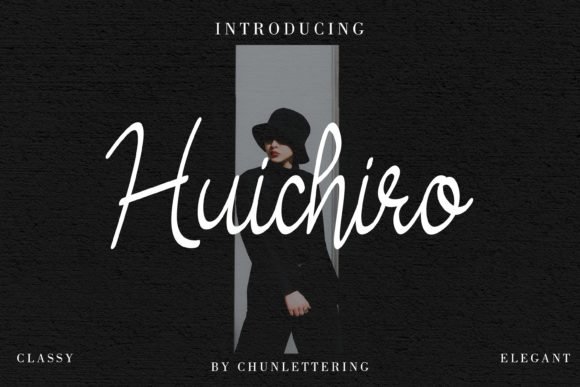
Have you ever been browsing through a magazine or scrolling through social media, and suddenly a font catches your eye? That’s exactly what happened to me when I stumbled upon the Huichiro Font. Its delicate, fashionable script is the epitome of elegance and sophistication, making it perfect for any branding project.
Whether you’re designing a logo, creating t-shirt printing, or crafting unique products, Huichiro Font is an excellent choice. Its versatility allows it to shine in a variety of contexts, from formal events to casual gatherings. As a designer, you’ll appreciate the value of having a font that’s both stylish and functional.
- Font Family: Huichiro Font is a unique, hand-drawn font that features intricate details and textures.
- Unique Characteristics: Features a blend of traditional and modern elements, with a focus on ornate details and textures.
Huichiro Font Review
I recently had the chance to work with the Huichiro font, and I have to say, it’s a unique and intriguing choice. ✨ One of the things that works well is its versatility – it can be used for both display and body text, making it a great option for designers who want a consistent look throughout their project.
- ✨ Versatility in font usage
- ✨ Interesting, hand-drawn aesthetic
- ✨ Supports a wide range of languages
However, there are some limitations to consider. ⚠️ One of the main issues I had was with the font’s readability at smaller sizes – the letters can become a bit fuzzy and difficult to distinguish. Additionally, the font’s weight and style options are somewhat limited, which may not be ideal for designers who want a lot of customization options.
- ⚠️ Limited weight and style options
- ⚠️ Readability issues at smaller sizes
Overall, I think the Huichiro font is a solid choice for designers who want a unique and eye-catching look. However, it may not be the best option for projects that require a lot of fine typography or high levels of readability.
Huichiro font is commonly used for:
- Traditional or vintage-themed designs.
- Asian-inspired artwork or graphics.
- Creating a unique and eye-catching visual identity.
Some tips for getting the most out of Huichiro font include:
- Pair Huichiro font with other bold or ornate fonts for contrast.